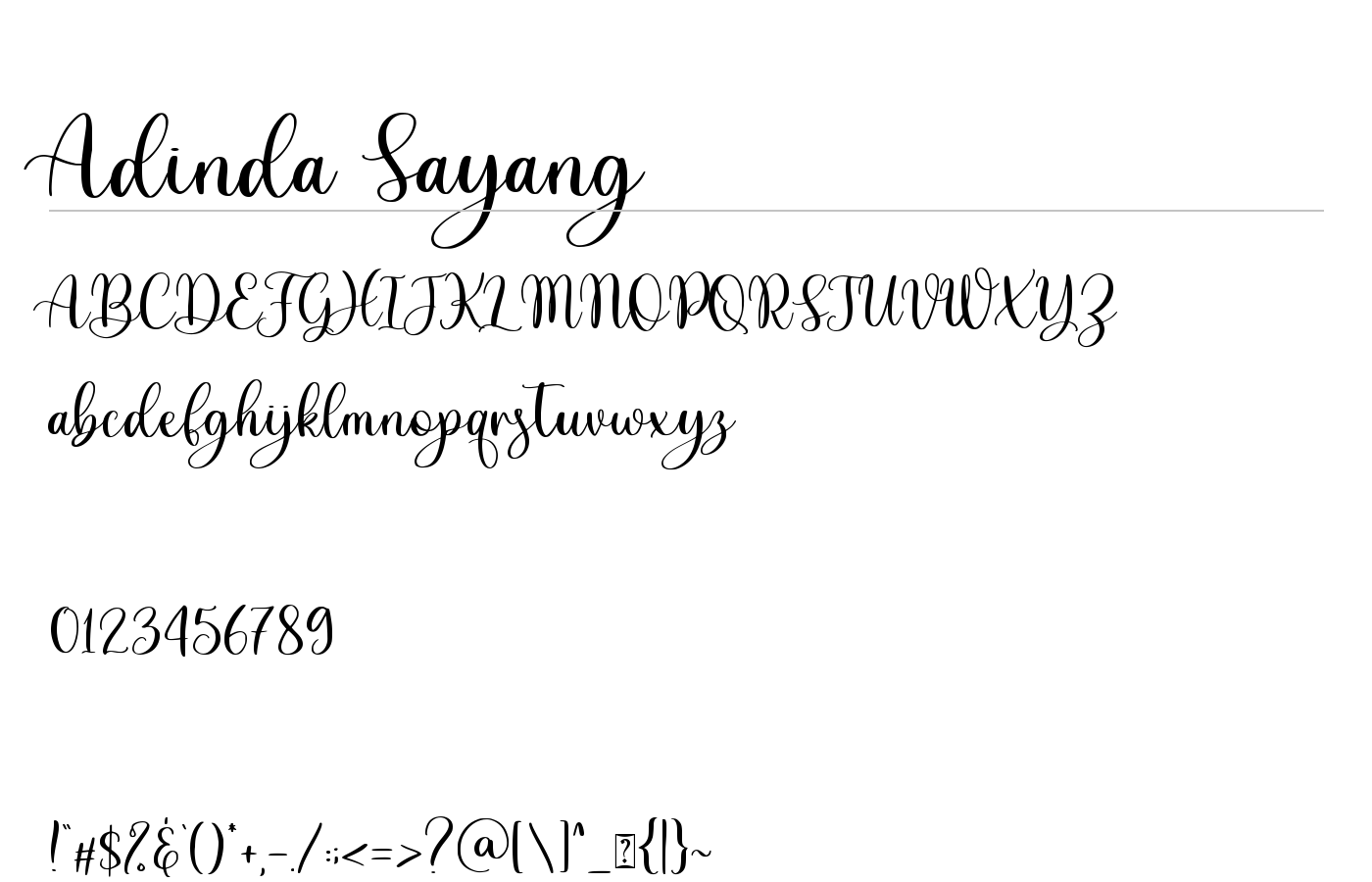
Adinda Sayang is an elegant script font characterized by its graceful, flowing letterforms and smooth, calligraphic strokes. With its moderate contrast and delicate swashes, it exudes a stylish, romantic feel that works beautifully for invitations, branding, and feminine-themed designs. This font’s intricate uppercase letters combined with its readable yet ornamental lowercase make it perfect for adding a sophisticated, handcrafted touch to headlines, logos, and packaging.
Adinda Sayang Font
About Adinda Sayang Font